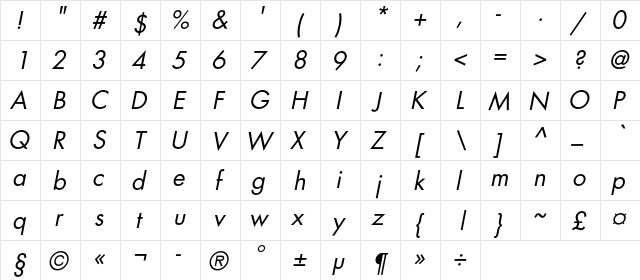
AGFatumC Italic
Design Context for AGFatumC Typeface
AGFatumC takes a measured approach to typography — its balanced proportions and neutral character make it a reliable workhorse for both digital and print work. The dynamic lean of this cut emphasises speed and emphasis in any layout.
Pro Tip: Try AGFatumC for annotation and caption copy alongside an upright companion — the contrast in angle creates a dynamic but ordered typographic system.